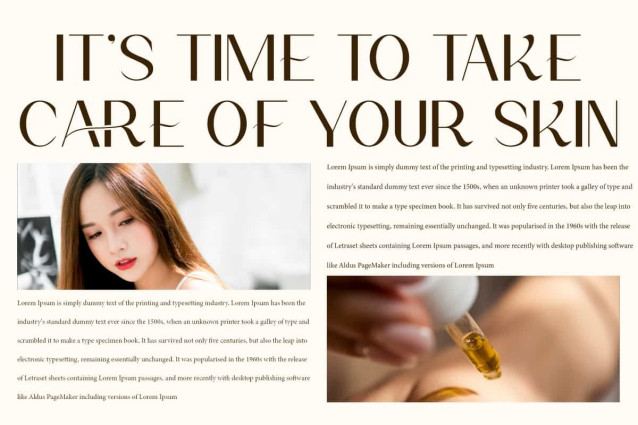
Delphia Maren Font
Delphia Maren Font is a beautiful stylish sans serif display font with an elegant and modern design, enriched with unique decorative elements. This font will be perfect for various projects, such as gift box, invitation, advertisement, blog, branding, label, layout design, quotes, signboard, template design purpose, website, and many more.
Delphia Maren Font includes full set of Uppercase and Lowercase Basic Characters, Numerals, Punctuation, and Symbol. This font contain Ligature character, creating a strong yet artistic impression. Making it a perfect choice for a variety of fields, such as accessories and jewelry, cosmetic, event or wedding organizer, fashion, florist, furniture, real estate, skincare, spa salon, etc.